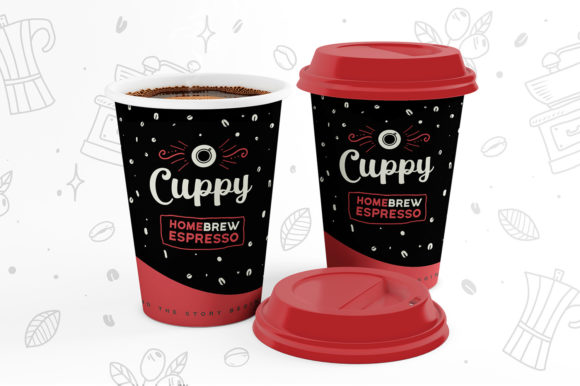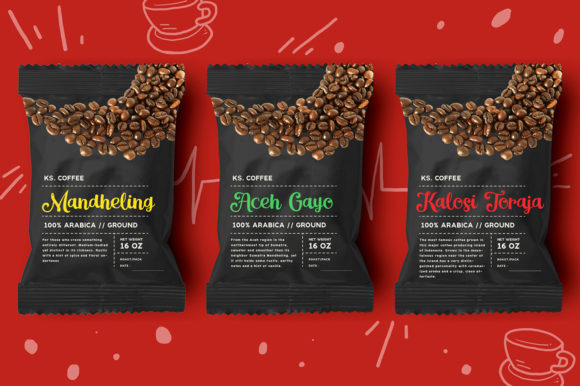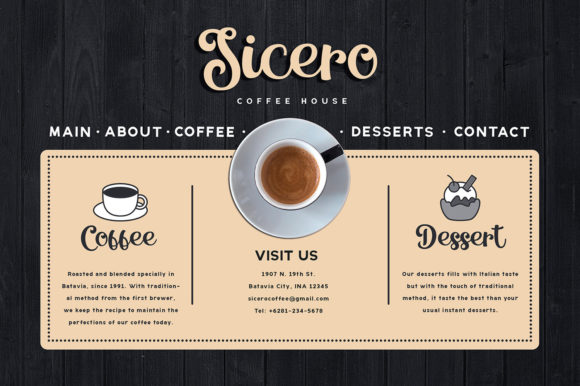
Introduction to Magle Font
Have you ever been working on a creative project, pouring your heart and soul into it, and then that one perfect font comes along and makes it all come together? For designers, finding the right font can be the difference between a good project and a great one. And that’s exactly what we’re excited to share with you today – the Magle Font.
This stylish duo font is a perfect combination of script and sans serif, offering endless possibilities for adding a chic and cheery touch to your crafts. Whether you’re working on a digital design project or a handmade craft, the Magle Font is sure to elevate your creation to the next level.
Key Features of Magle Font
- High-quality design for creative projects with a unique aesthetic
- Perfect design resource for designers, artists, and creatives looking for a unique and versatile font
Honest Review: Magle Font
I recently had the chance to work with the Magle Font, and I’m excited to share my honest review with you.
What’s not so great: ⚠️ One limitation I’ve noticed is that the Magle Font doesn’t come in a wide range of weights or styles, which can limit its use in certain design applications. Additionally, the font may not be suitable for use in small font sizes, as the letters can become pixelated.
- Unique and modern design
- High-quality font perfect for creative projects
- May not be suitable for use in small font sizes
- Limited range of weights and styles
Magle Font
Tips for Getting the Most Out of Magle Font
Here are some tips for getting the most out of the Magle Font:
- Experiment with different font sizes and styles to add visual interest to your designs.
- Combine the Magle Font with other design elements to create a unique and eye-catching look.
- Use the transparent background feature to create a seamless design experience.
The Magle Font is a versatile design resource that can be used in a variety of creative projects, including:
- Branding materials
- Marketing materials
- Infographics